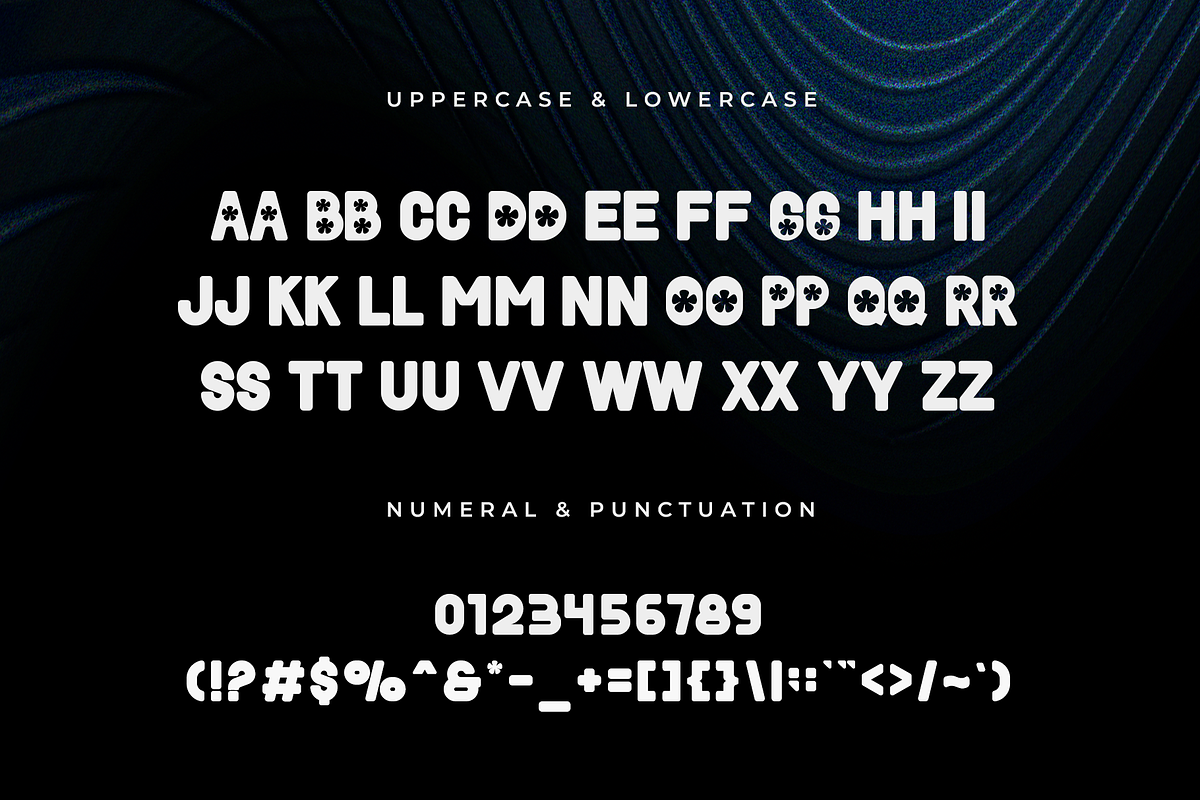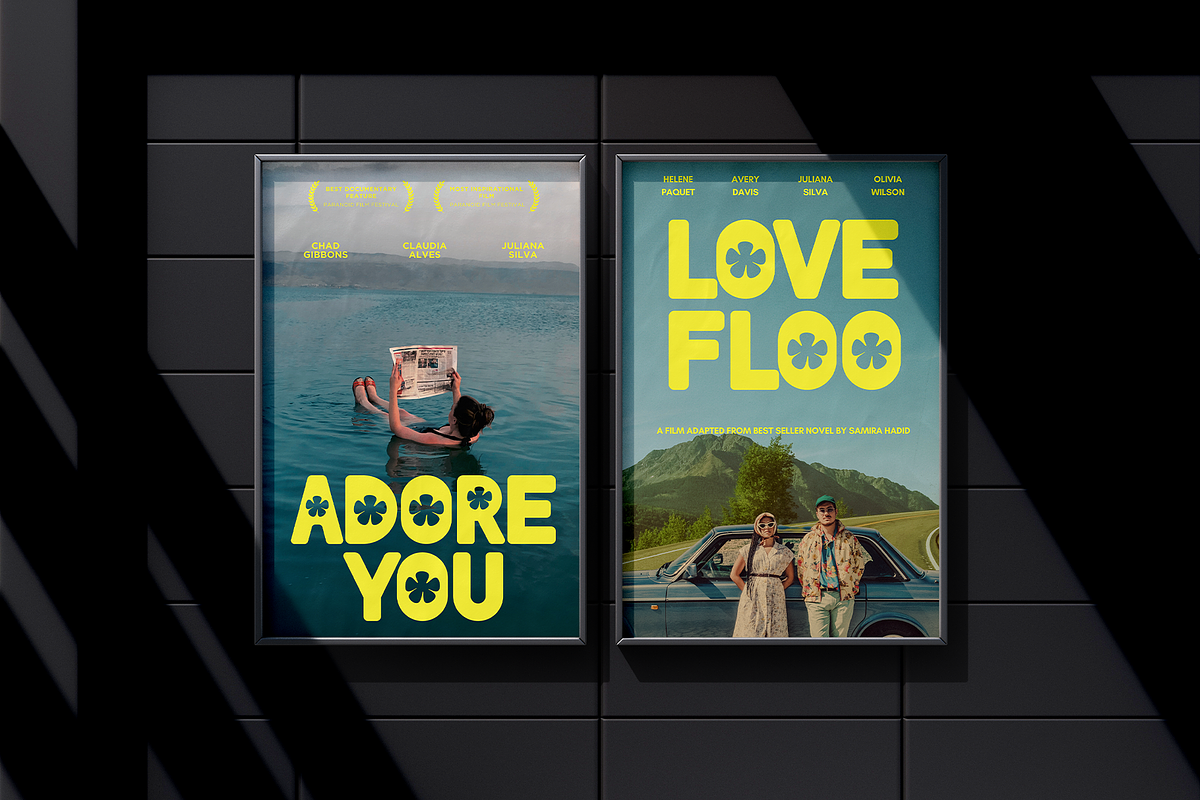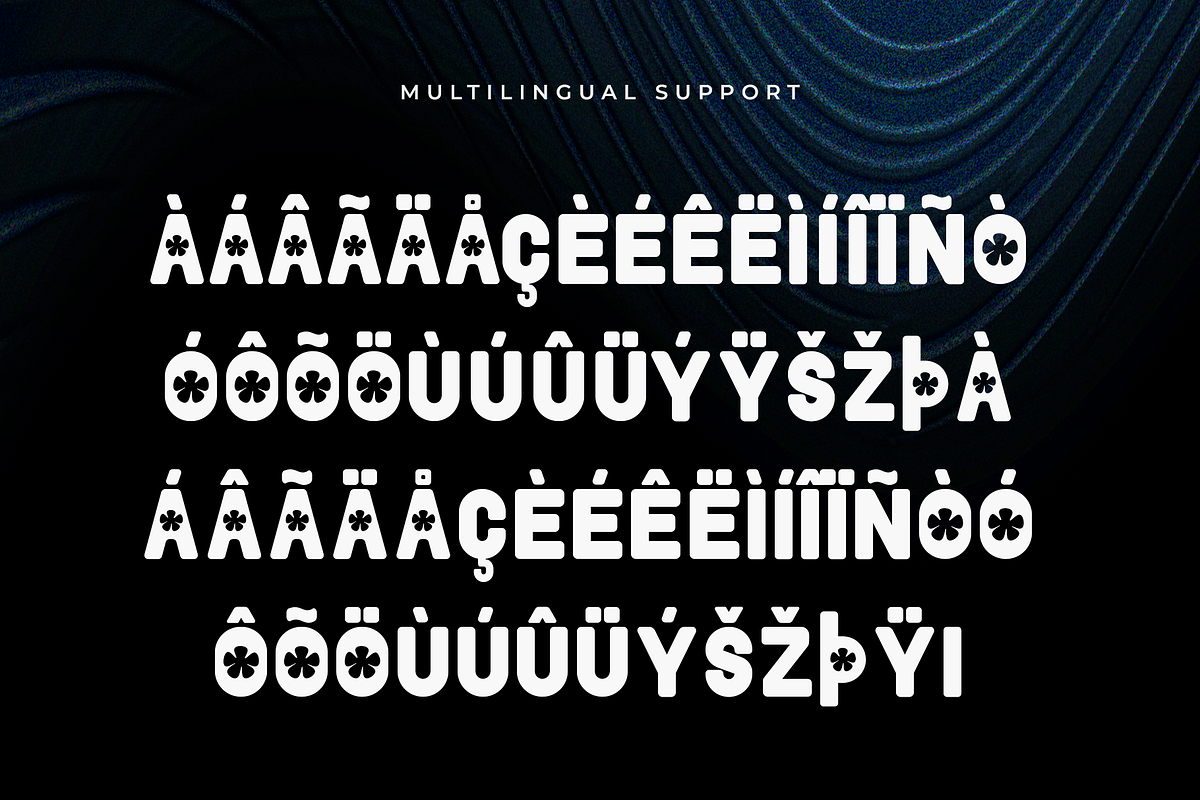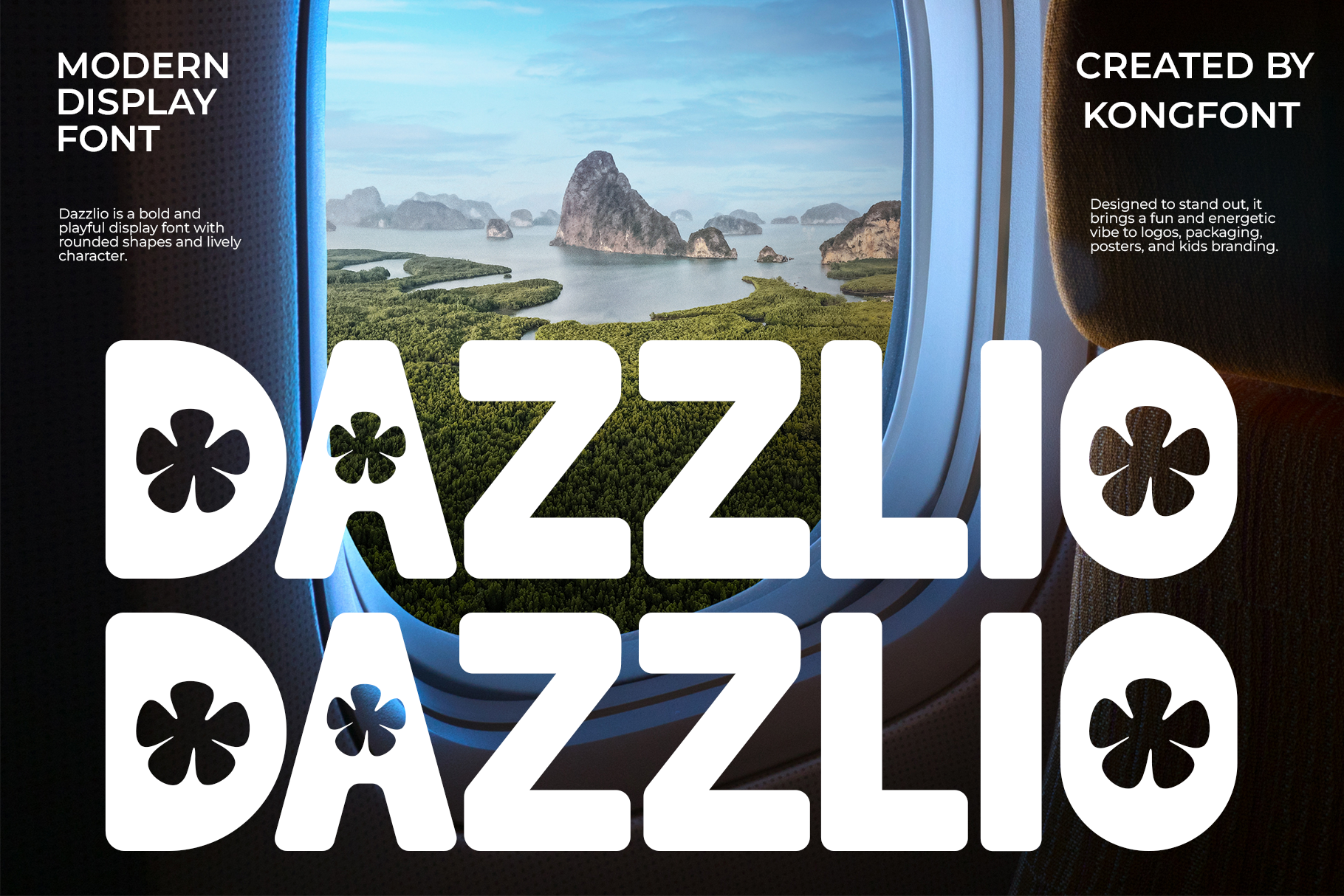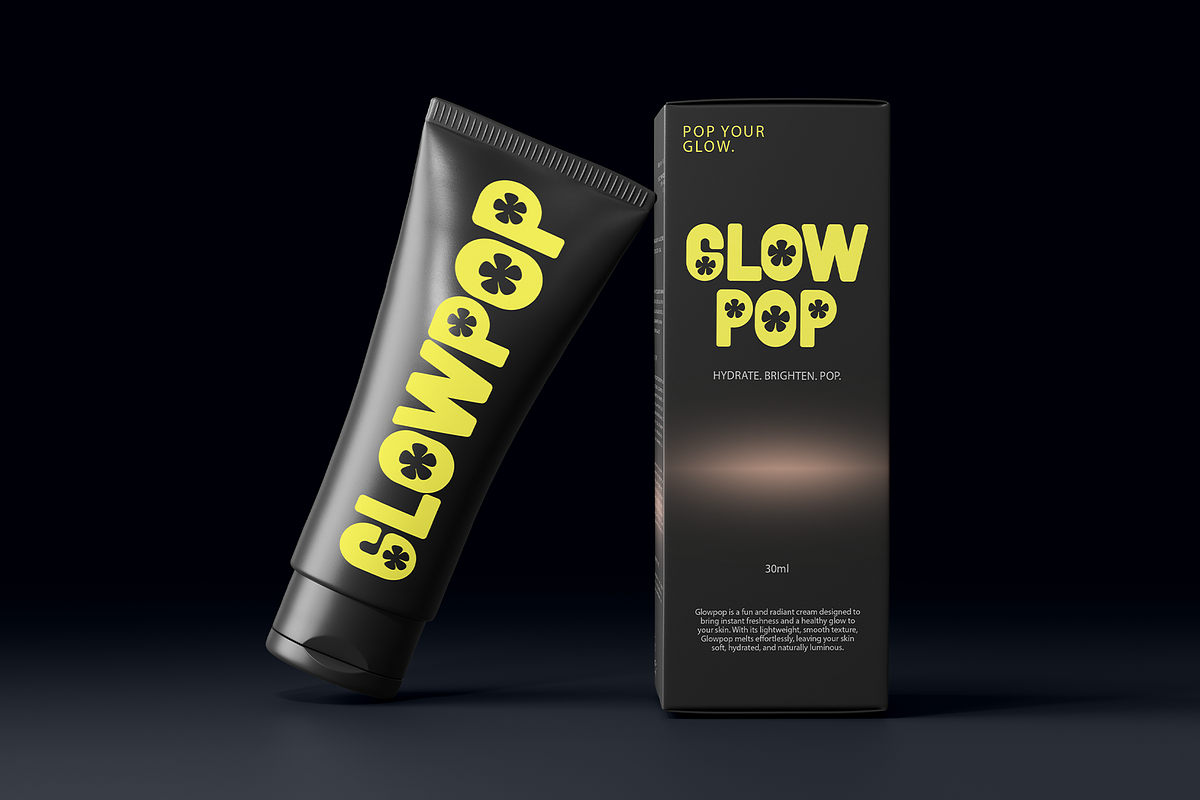
Dazzlio – Modern Display Font
Dazzlio is a modern display font crafted to bring vibrant energy and bold character to your designs. With its dynamic letterforms, stylish curves, and eye-catching structure, Dazzlio instantly draws attention and creates a strong visual statement.
Perfect for posters, event promotions, branding, packaging, social media graphics, headlines, merchandise, and trendy logo designs, Dazzlio performs beautifully in large sizes where personality matters most.
Make your designs stand out and sparkle with Dazzlio a modern display font made to impress.